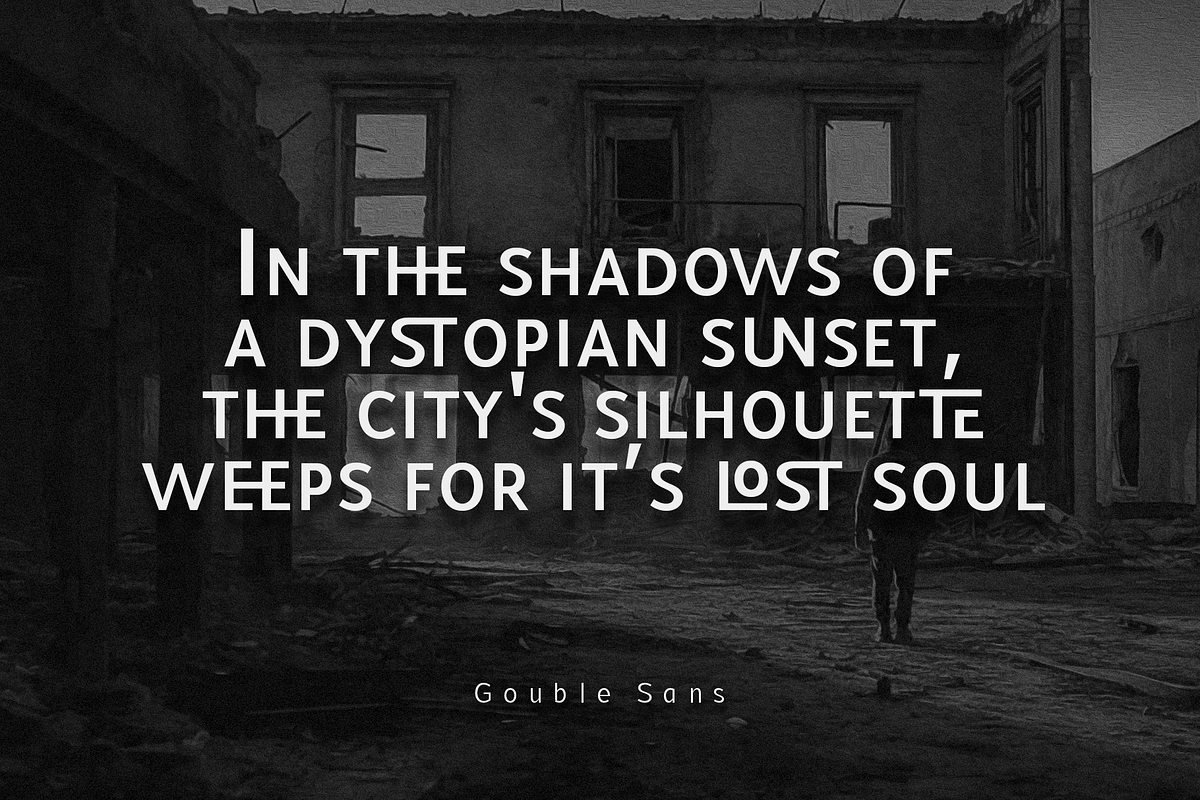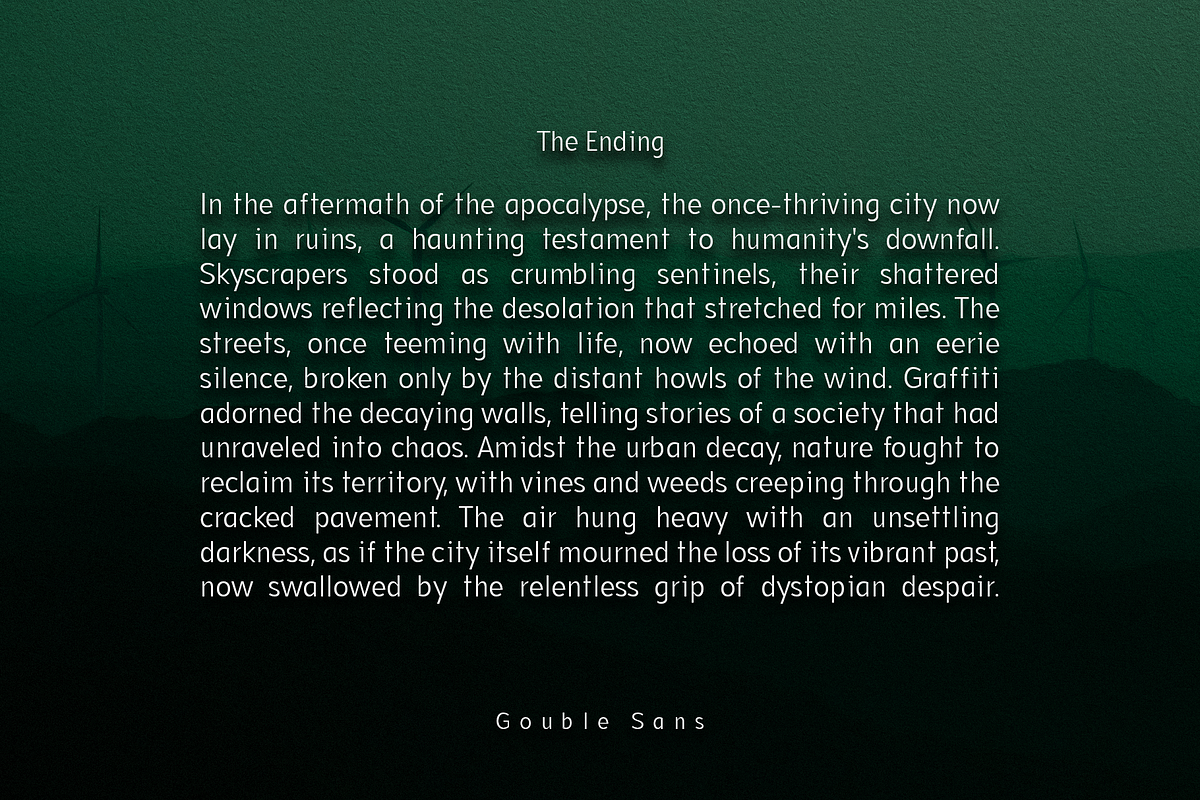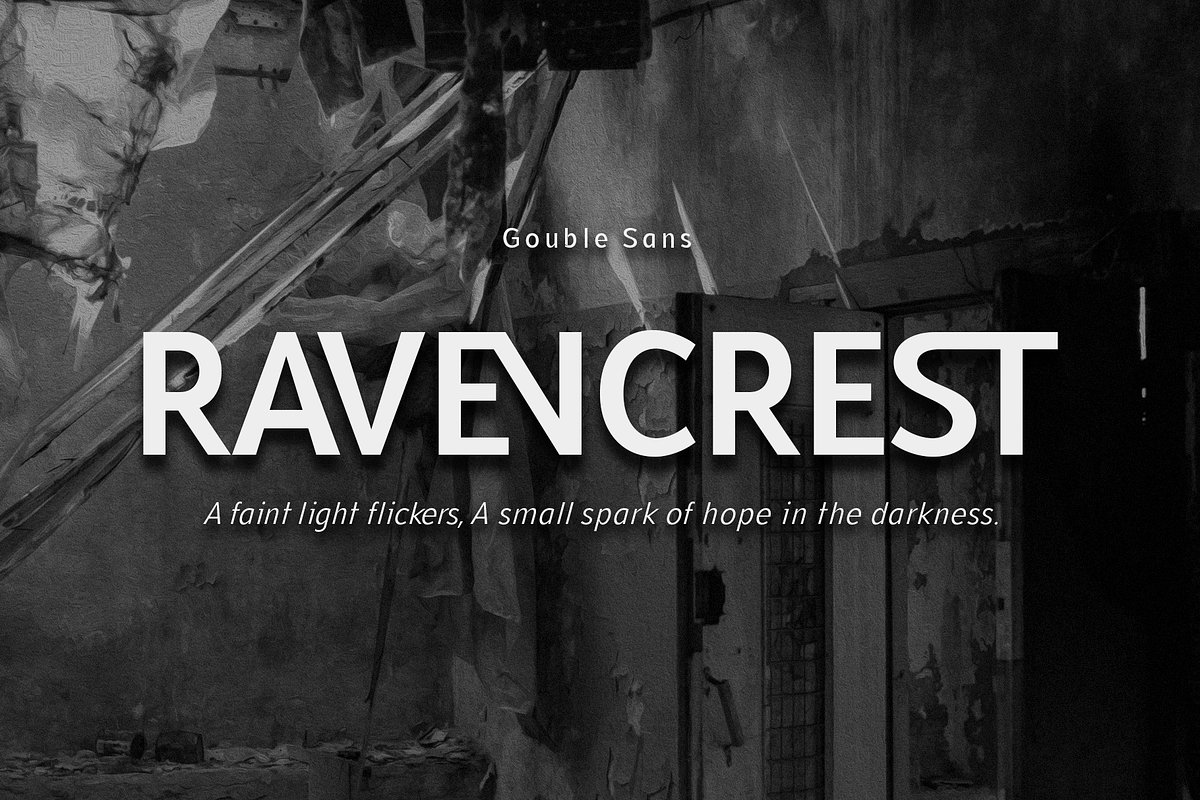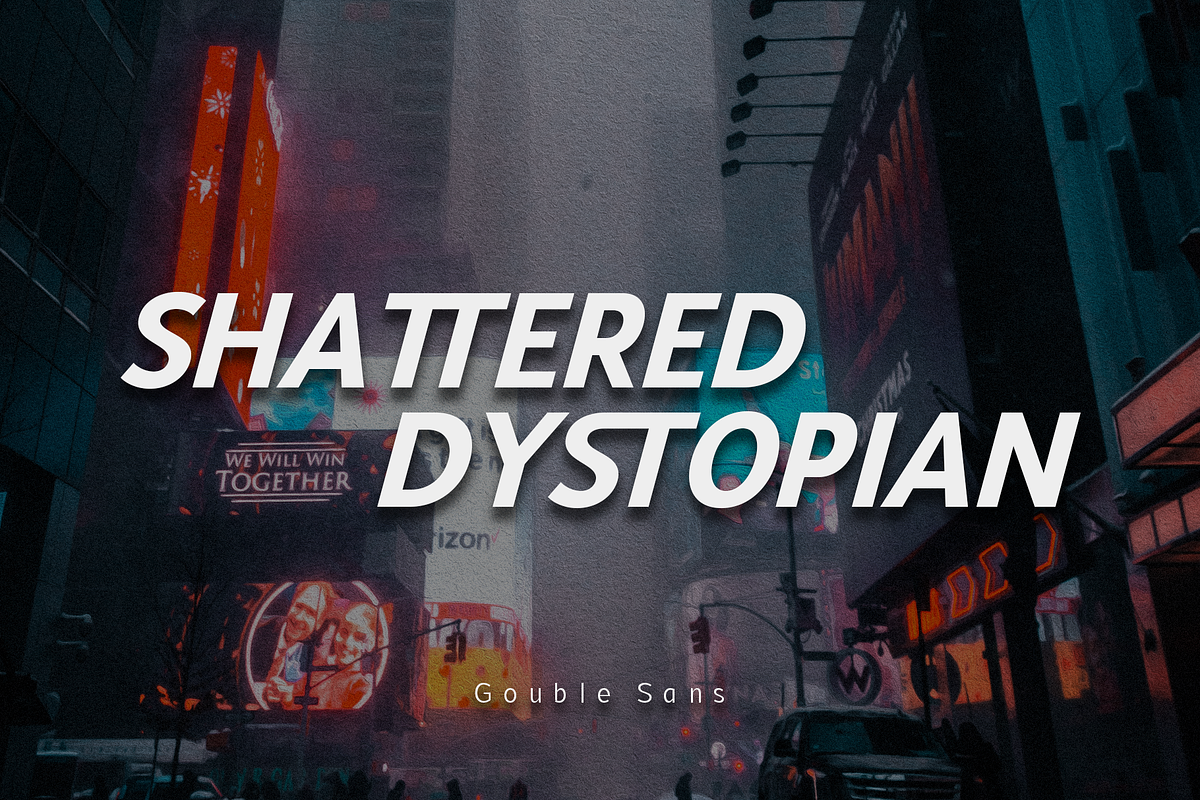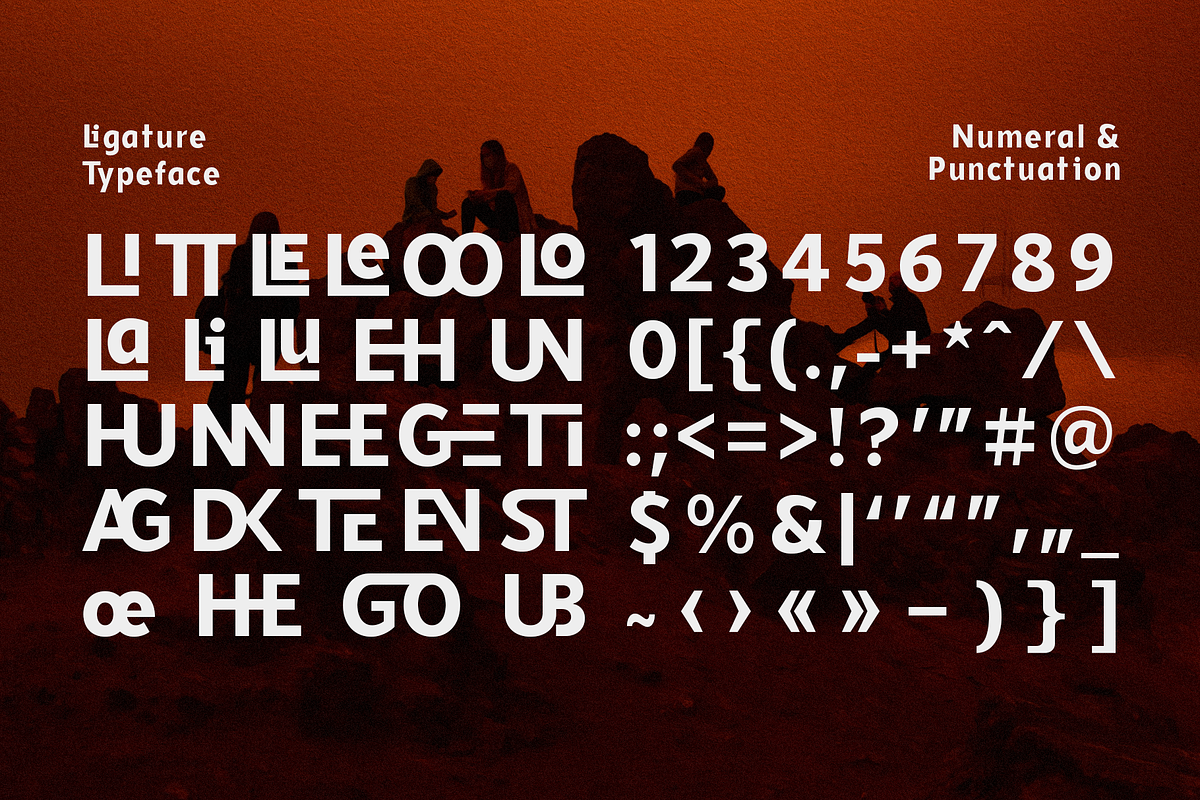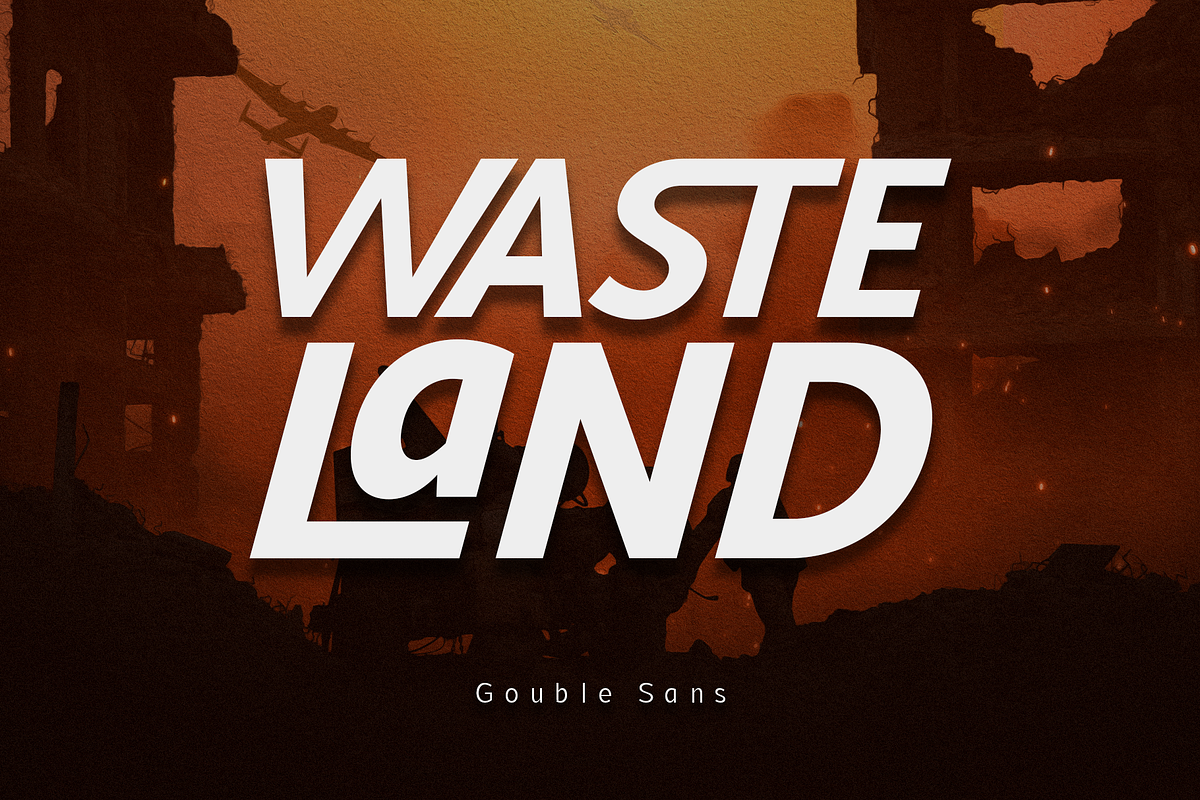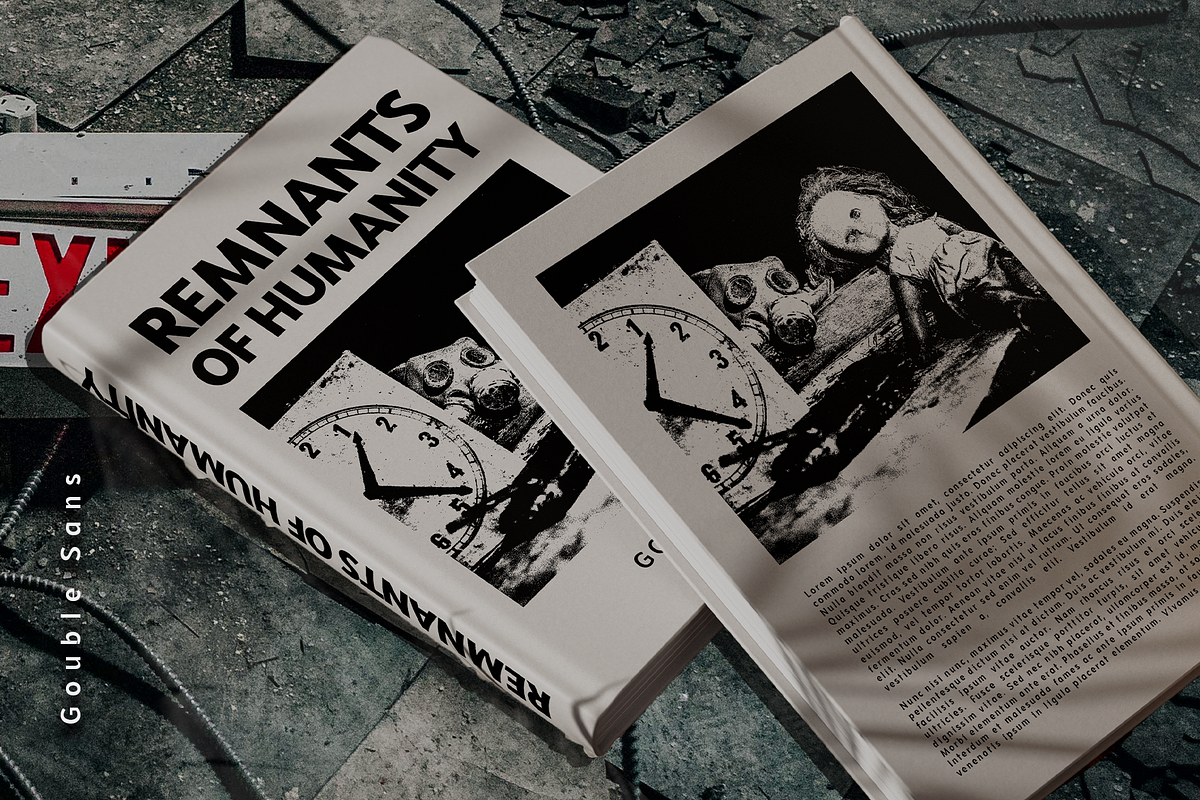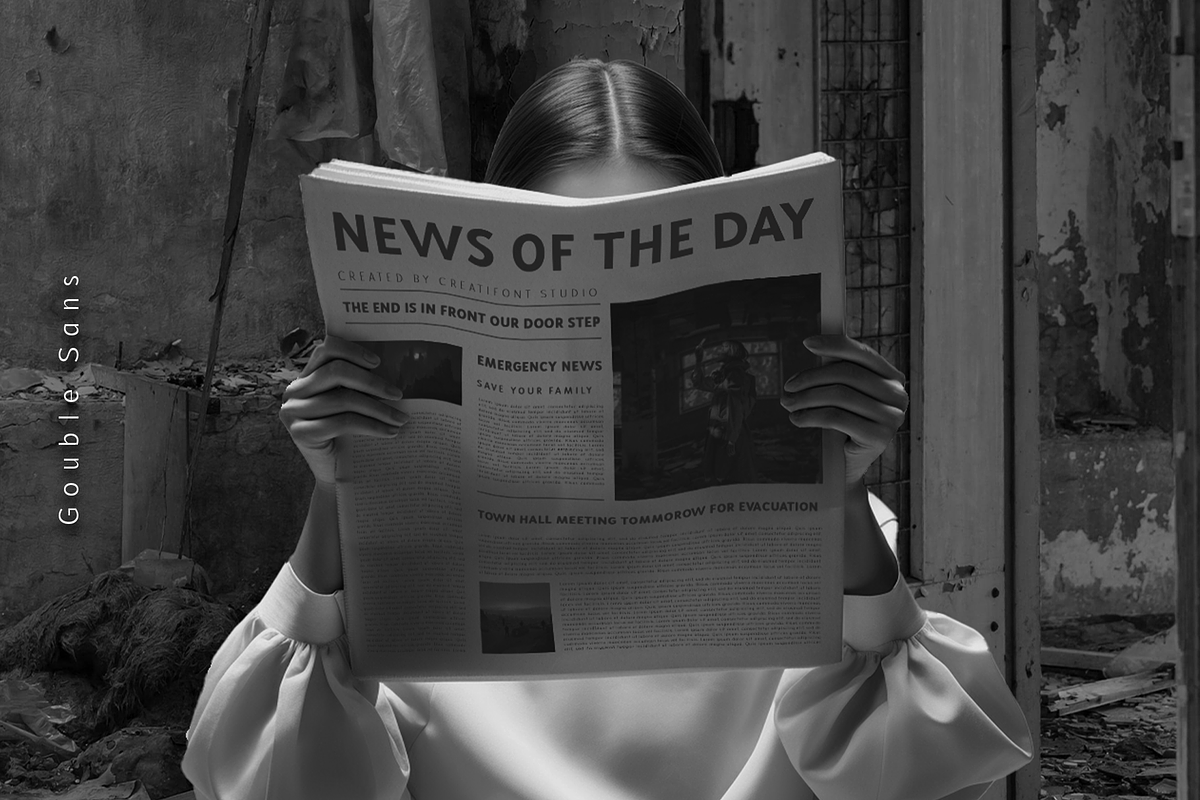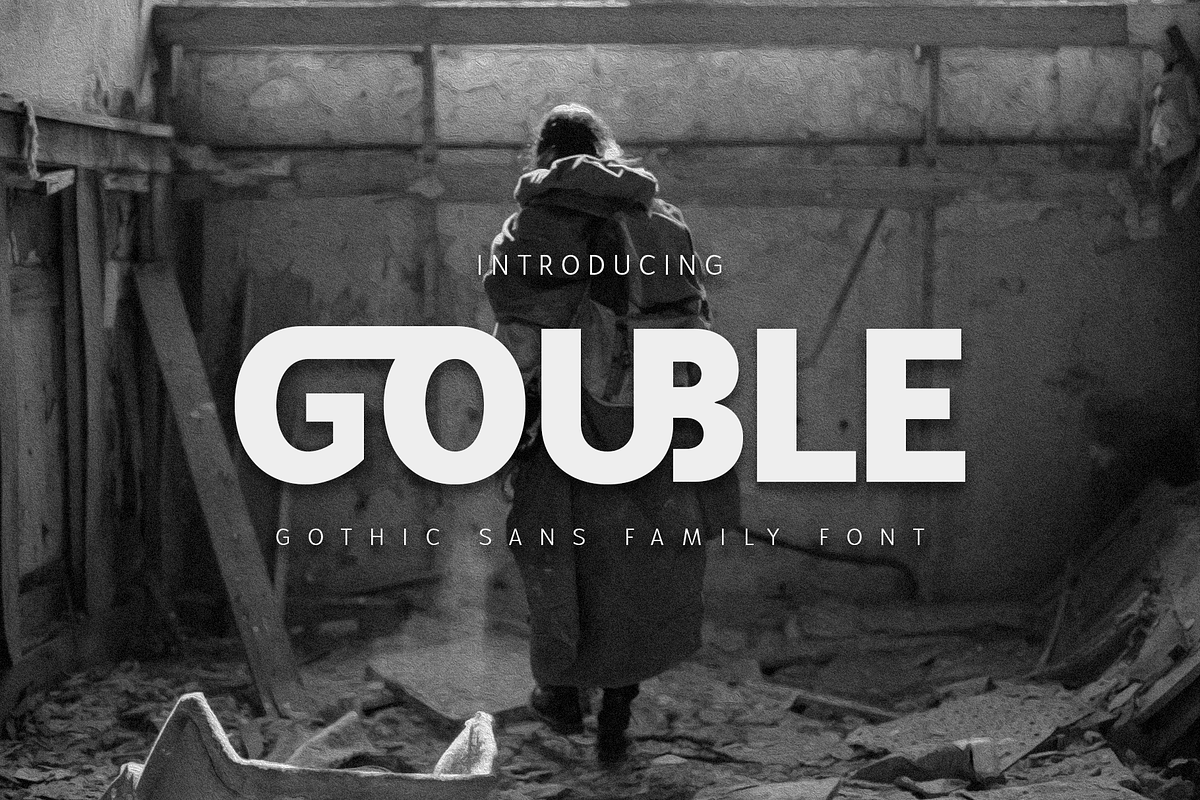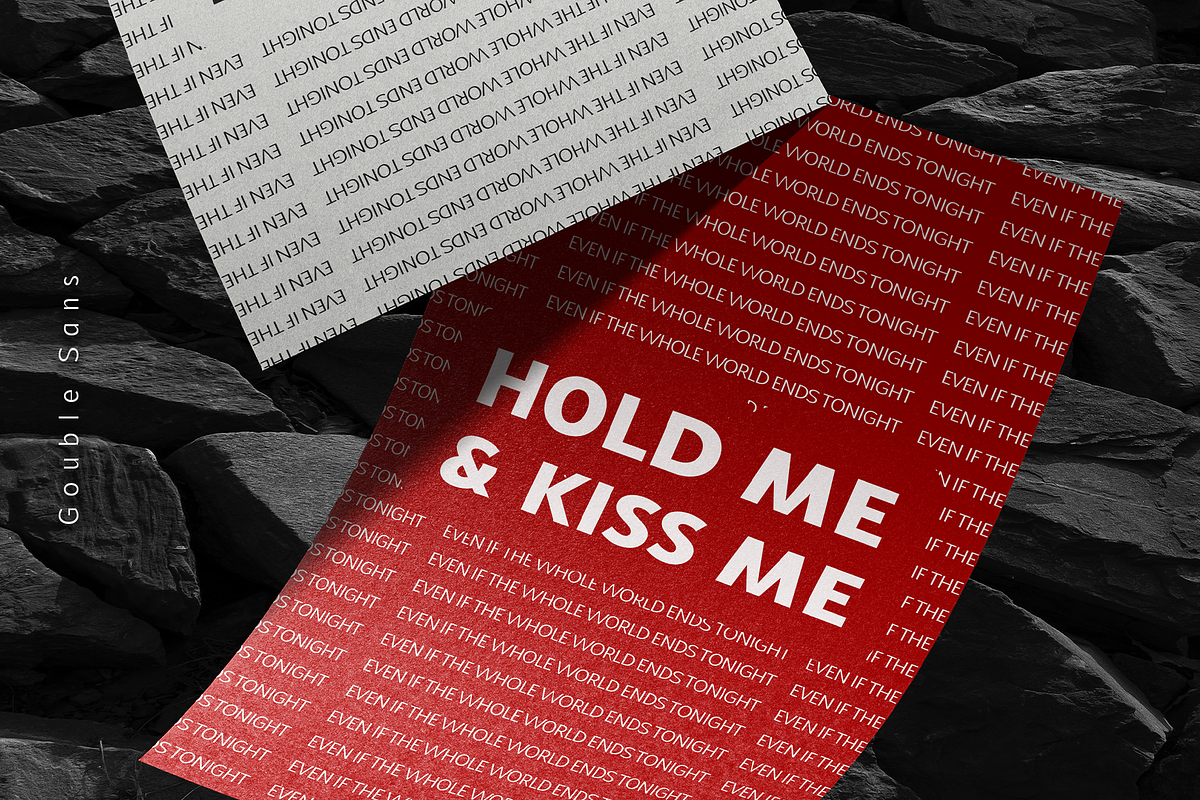
CF Gouble - Modern Sans Serif
Gouble - a contemporary gothic sans-serif typeface, characterized by its geometric precision and impactful presence. Its clean lines and remarkable proportions evoke a sense of modern architecture. Crisp lines and sharp angles lend a modern and professional aesthetic, and consistent stroke weight conveys confidence and impact, ideal for headlines and branding. Gouble comes with many of ligatures that showcase subtle design flourishes, adding personality and memorability. Its impactful presence and versatile nature make it a valuable asset for designers seeking a confident and contemporary voice for their projects.
Ligatures typeface in various weight